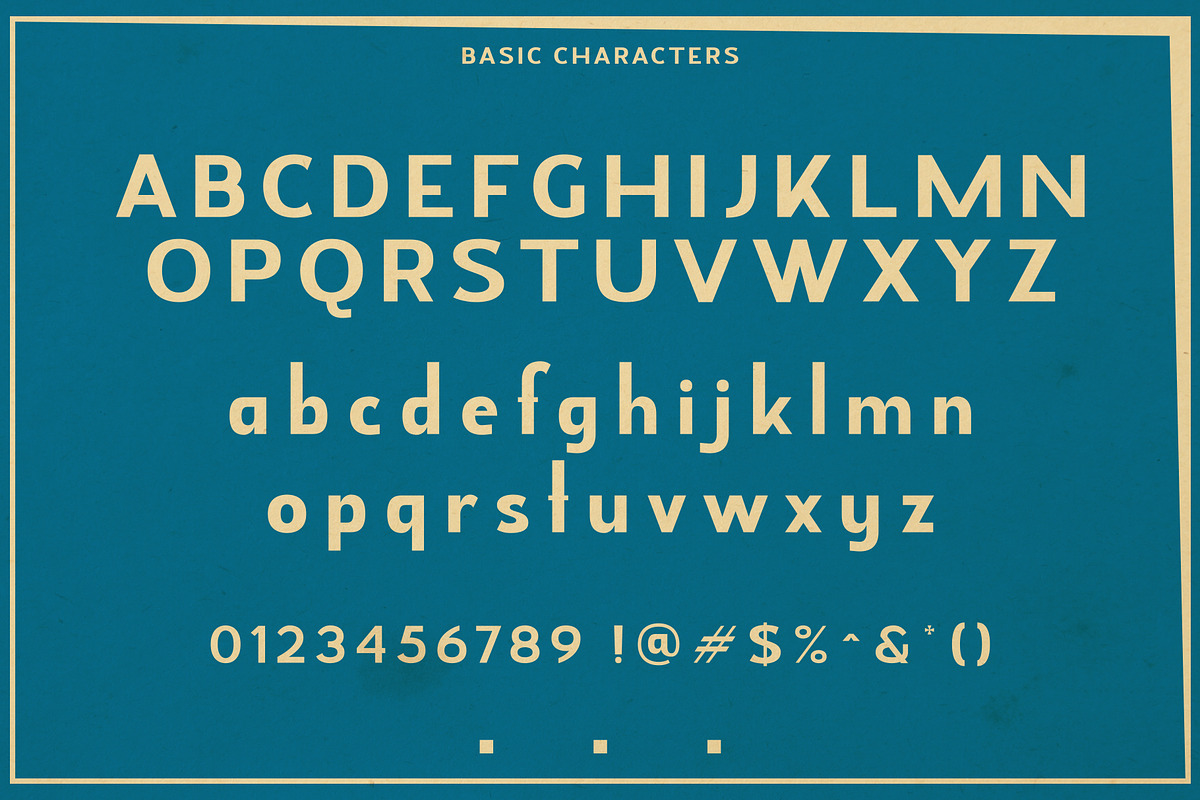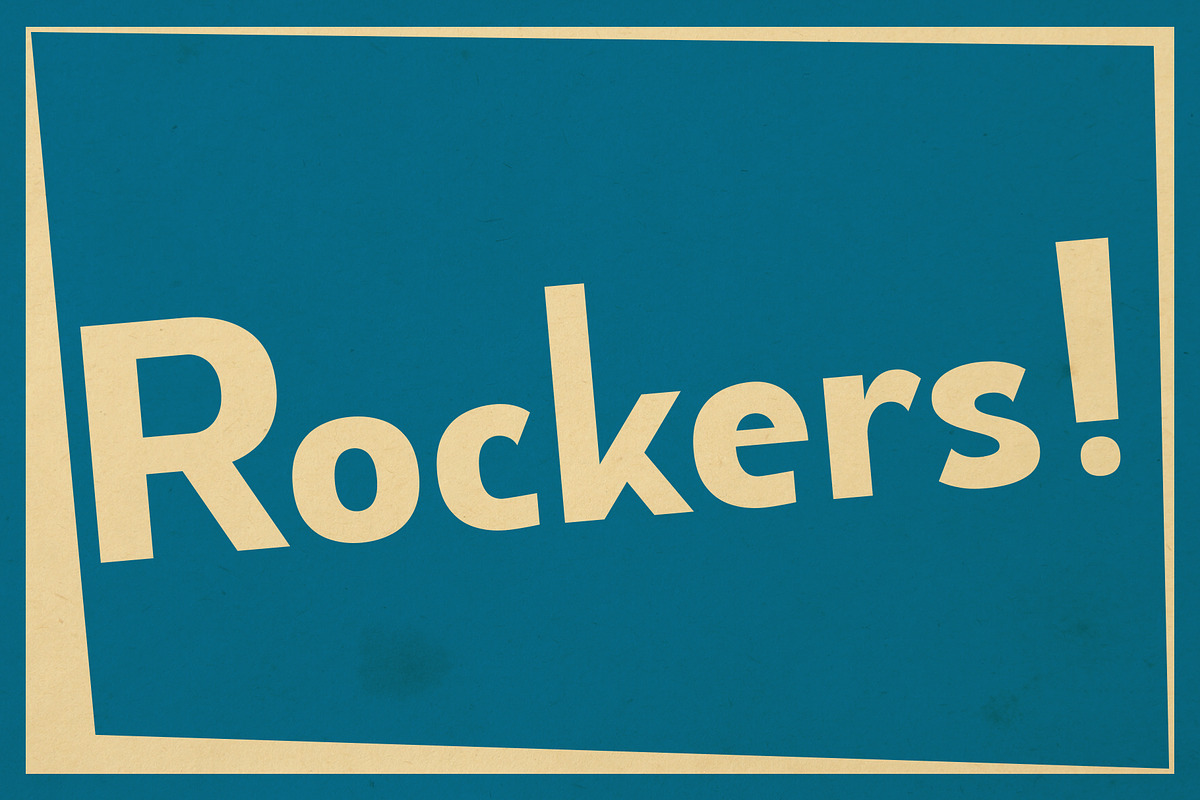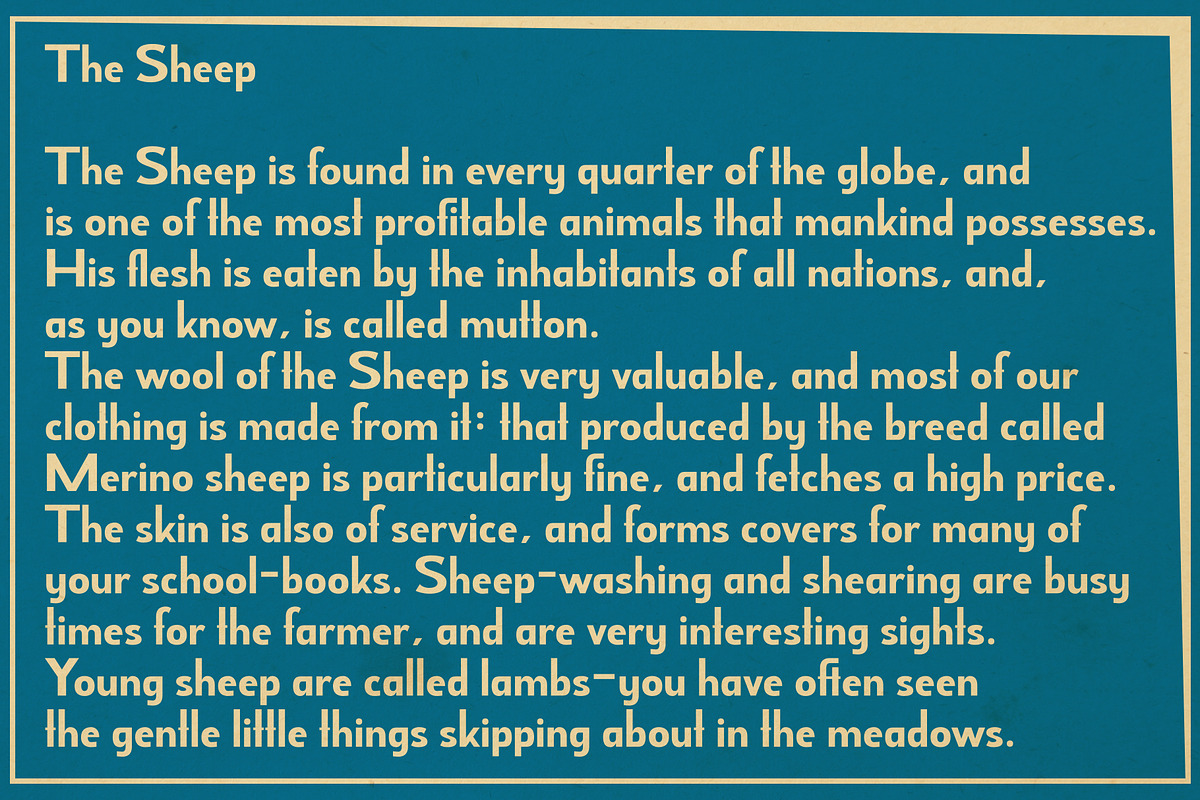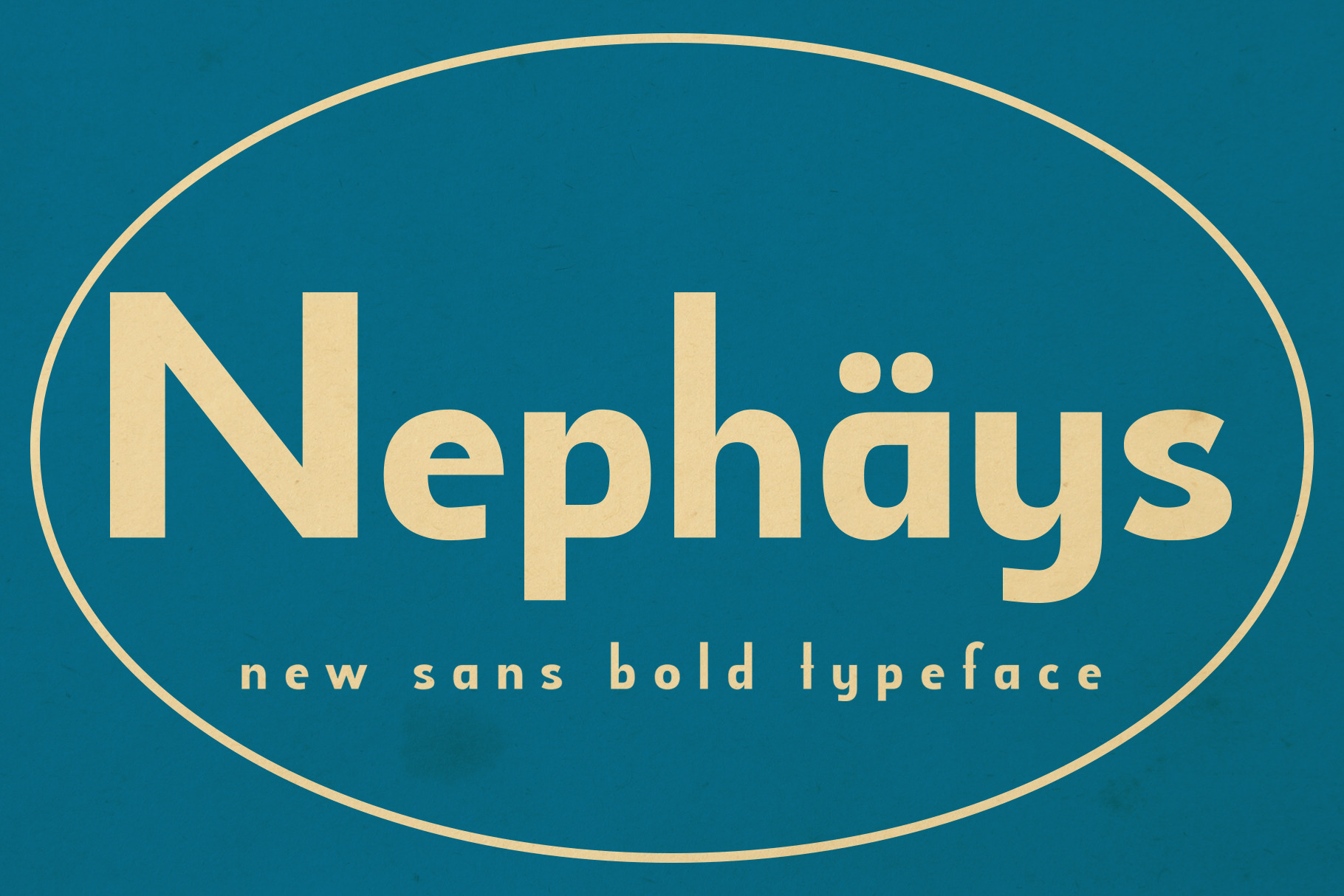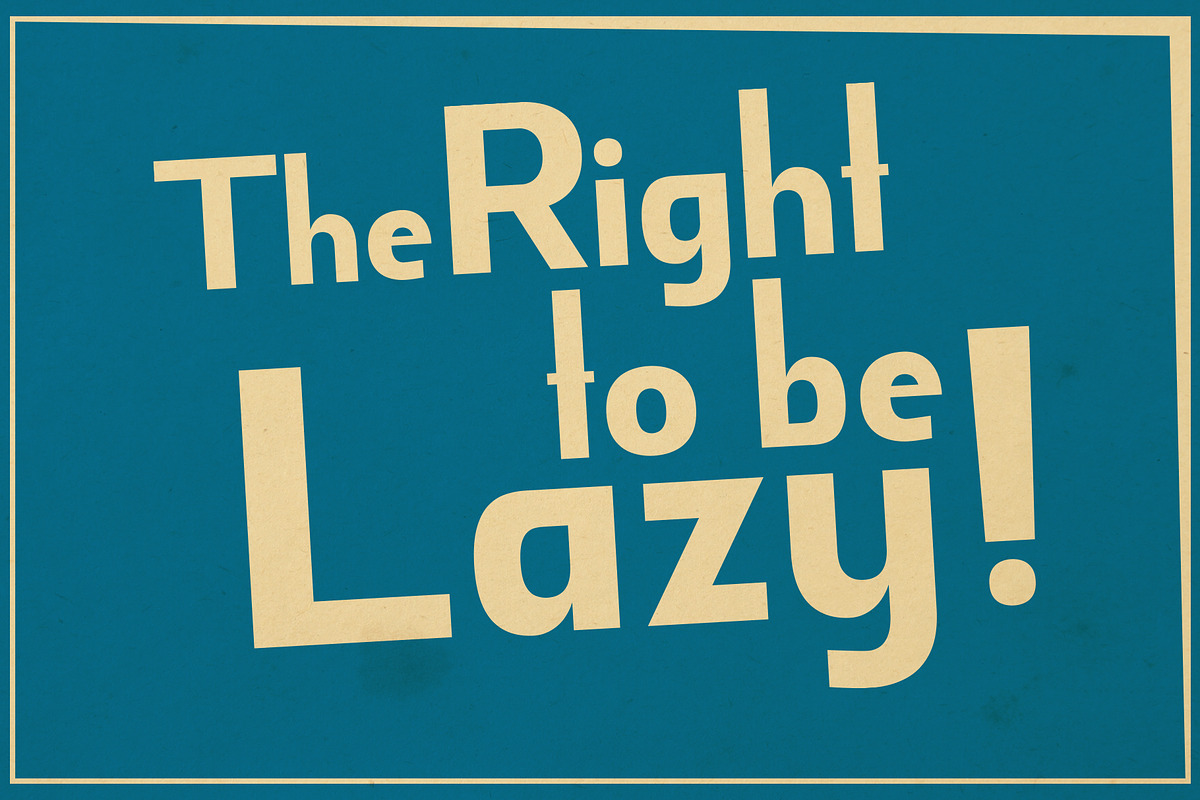
Nephays Typeface
Nephays | it’s a classy sans serif bold typeface with strong characters it’s make perfect to create Elegant Design, Modern, Vintage, Retro and more. So Choice any Glyphs and create the awesome typography and design use this.